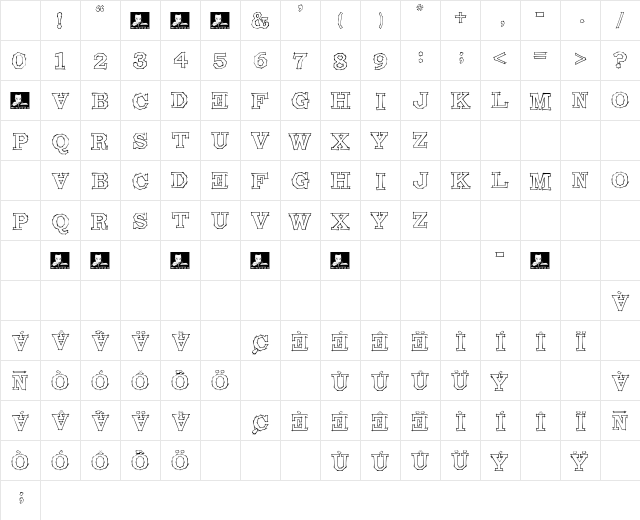
Maldita Comebolsas Regular
Designer: Woodcutter Manero
Design Context for Maldita Comebolsas
Maldita Comebolsas is a composed and adaptable typeface that performs quietly and consistently across a wide range of design contexts.